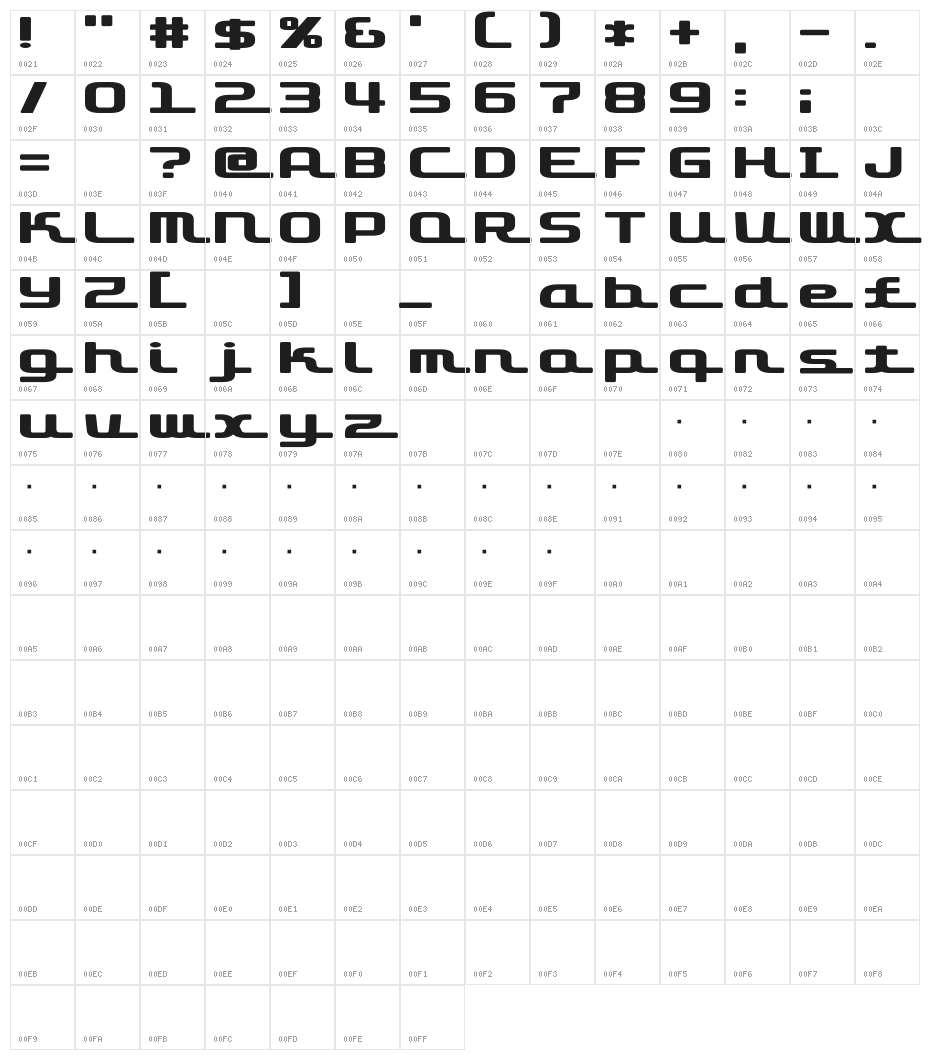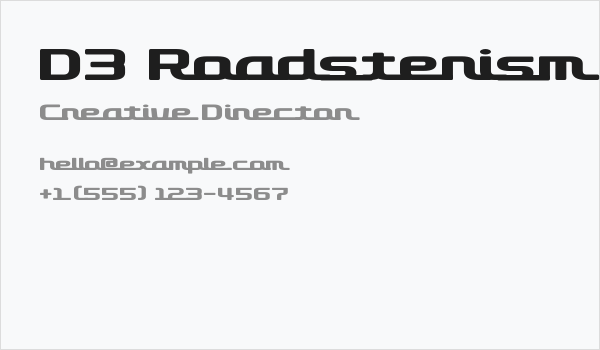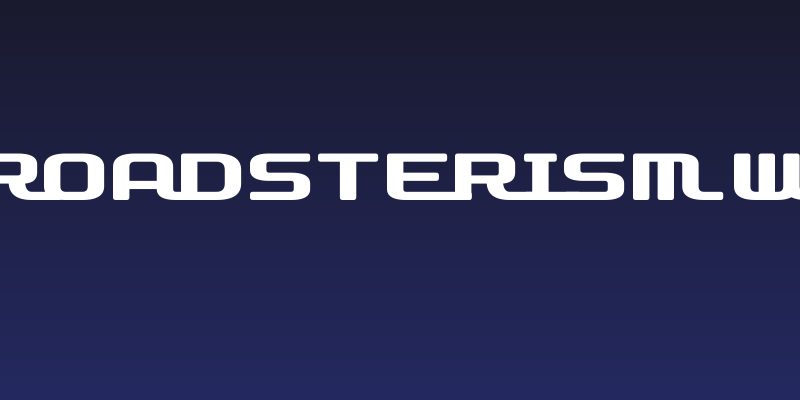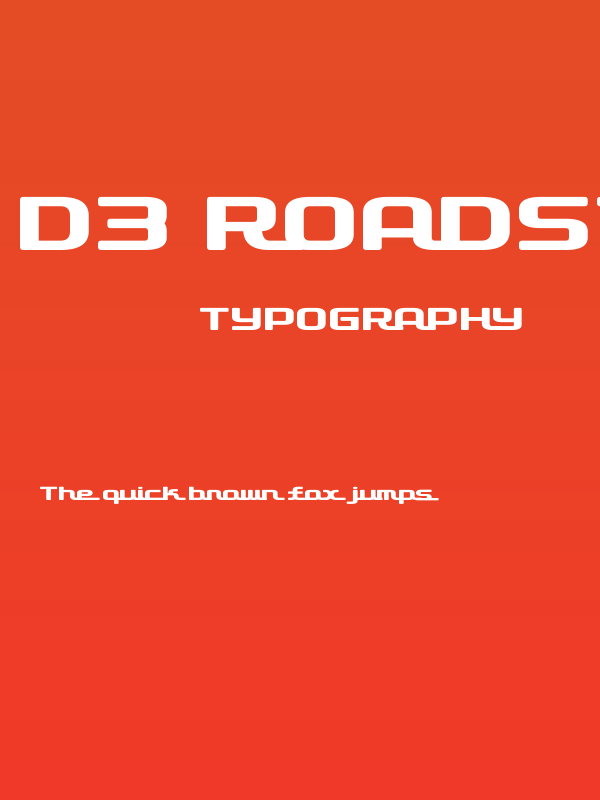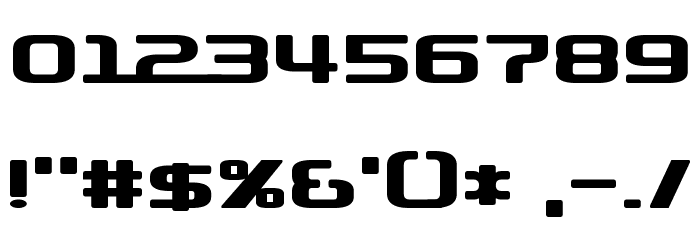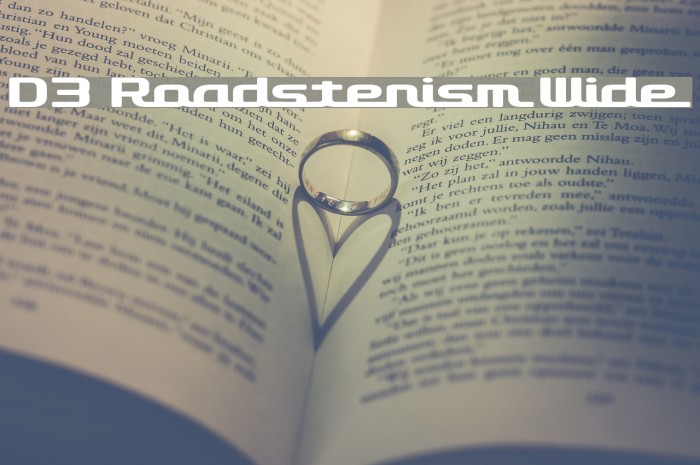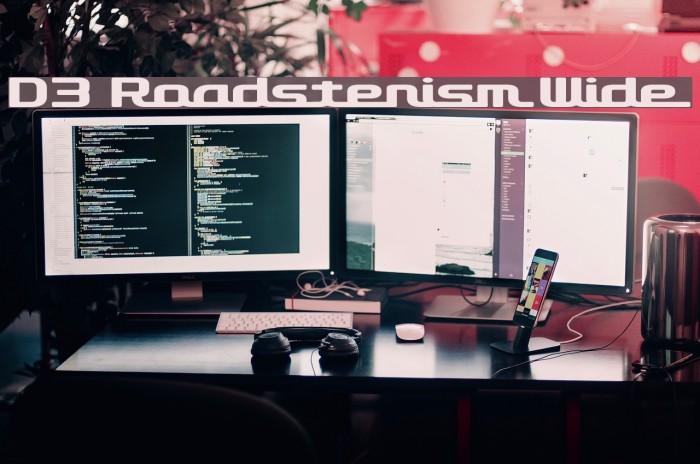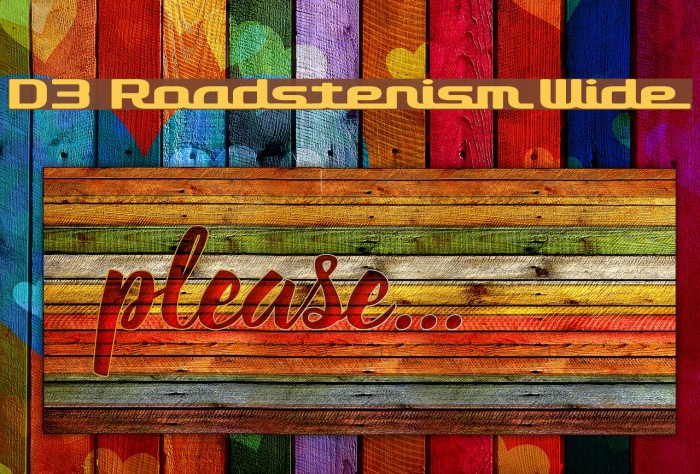
D3 Roadsterism Wide Font
D3 Roadsterism Wide Description
This font features a modern and futuristic design with a wide, geometric structure. The characters are bold and have a distinct, mechanical feel, characterized by their rounded edges and uniform stroke width. The uppercase and lowercase letters maintain a consistent style, with a unique blend of curves and straight lines that give it a sleek, streamlined appearance. The numerals and special characters follow the same design principles, ensuring a cohesive look across all glyphs. This font is ideal for projects that require a contemporary and tech-inspired aesthetic.
| Proposed Projects | Ideal for technology branding, automotive design, video game interfaces, and modern advertising campaigns. |